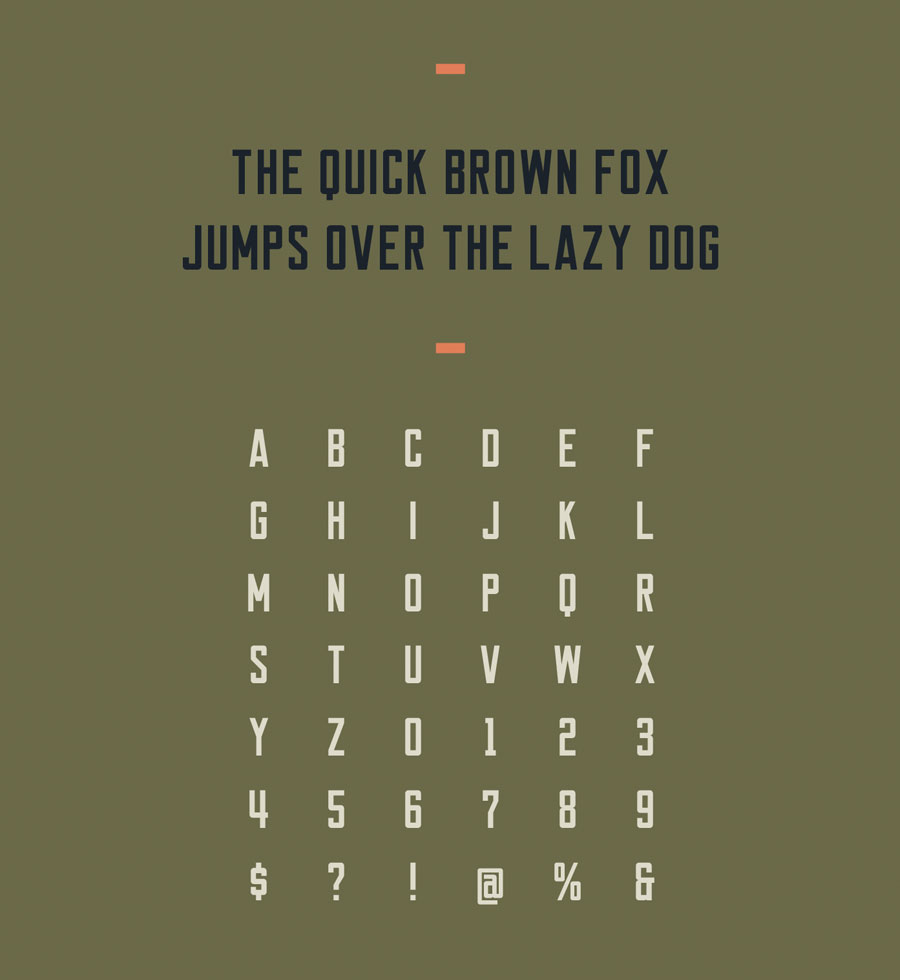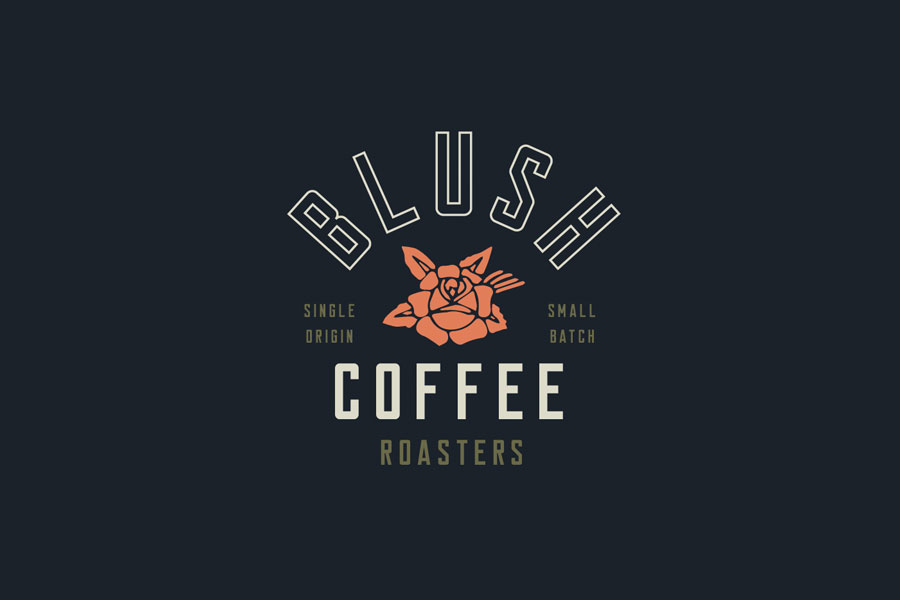
Ignite is a blocky sans serif typeface inspired by vintage lettering textbooks. This condensed font was mainly constructed by rigid straight lines, forming the letters.
Although it was inspired by vintage books, it works perfectly for modern day design applications including branding, labels, posters and more. You can download and tryout this font for free for personal use.